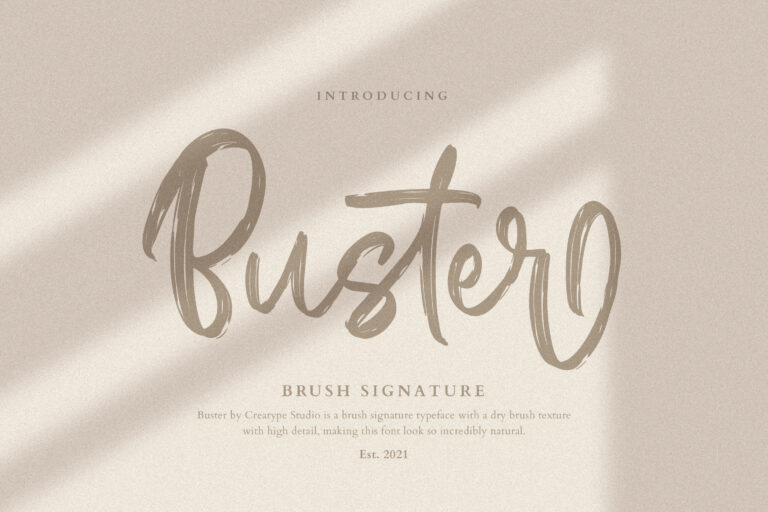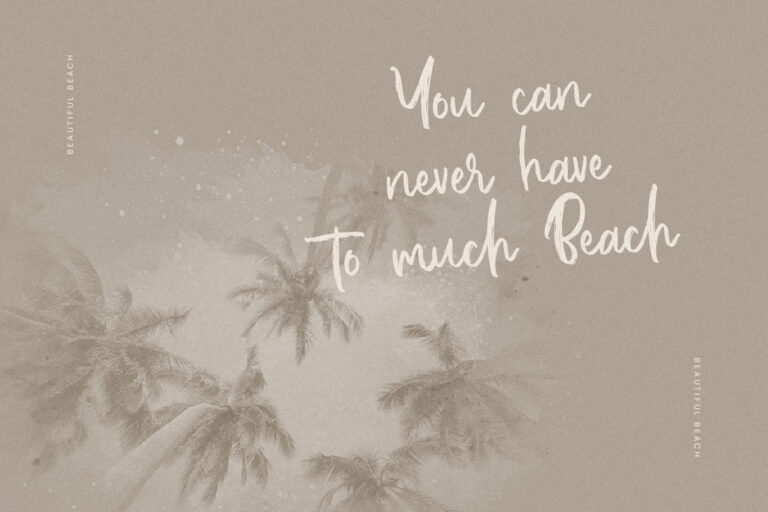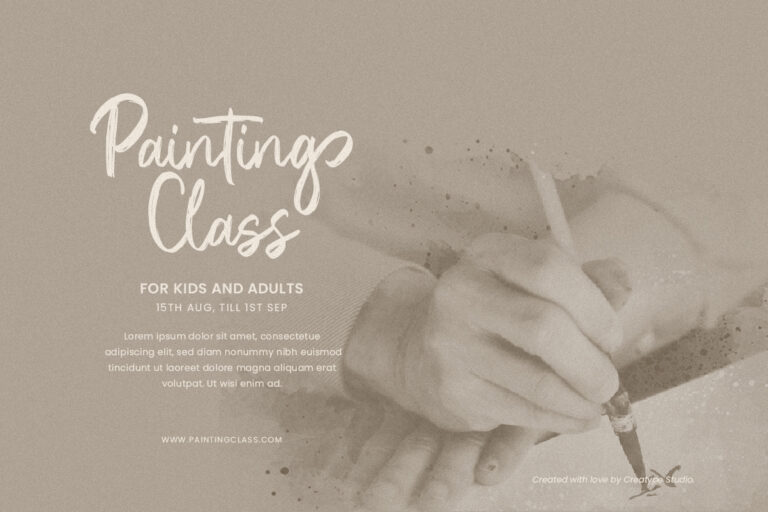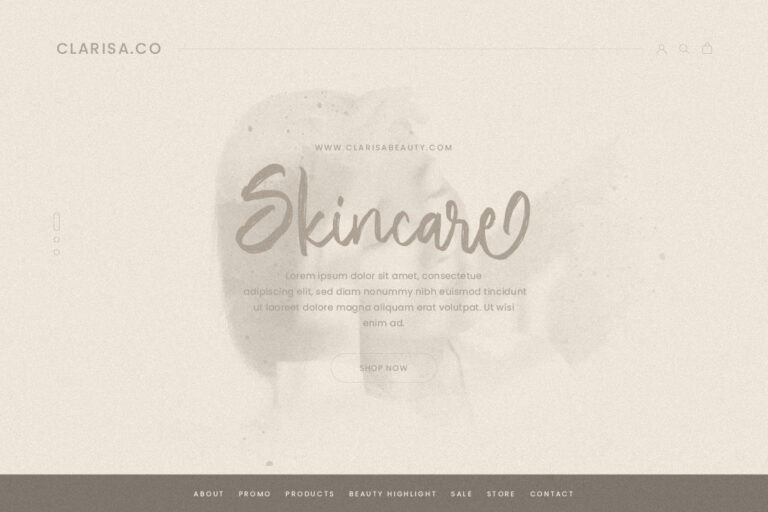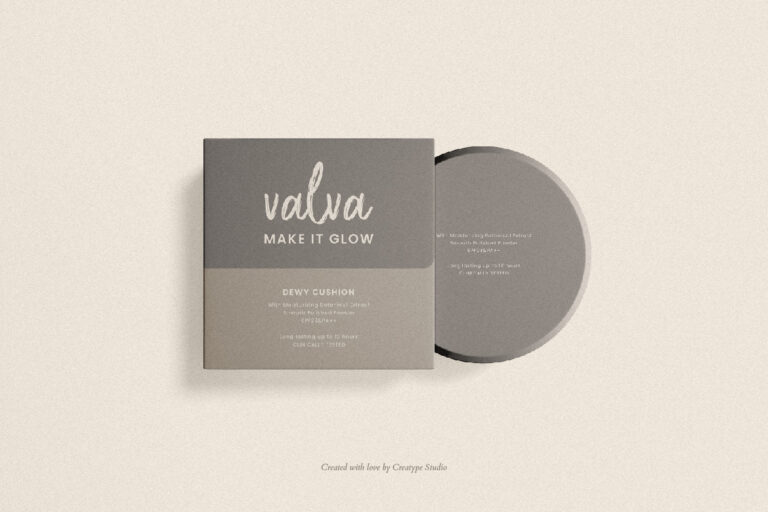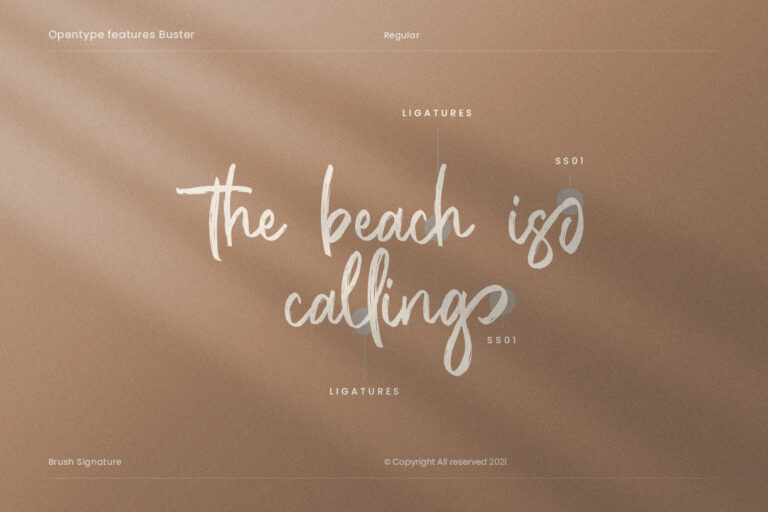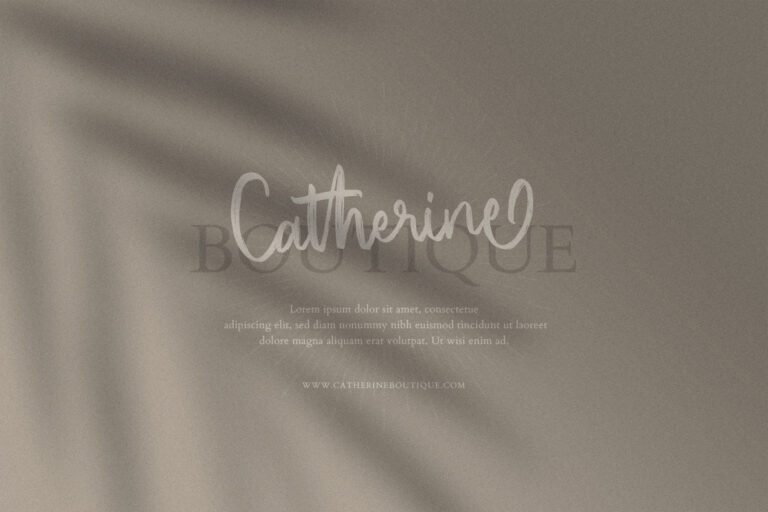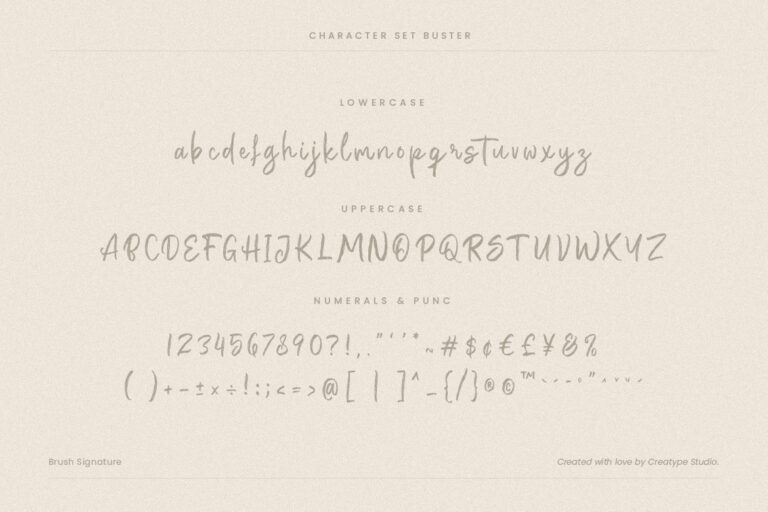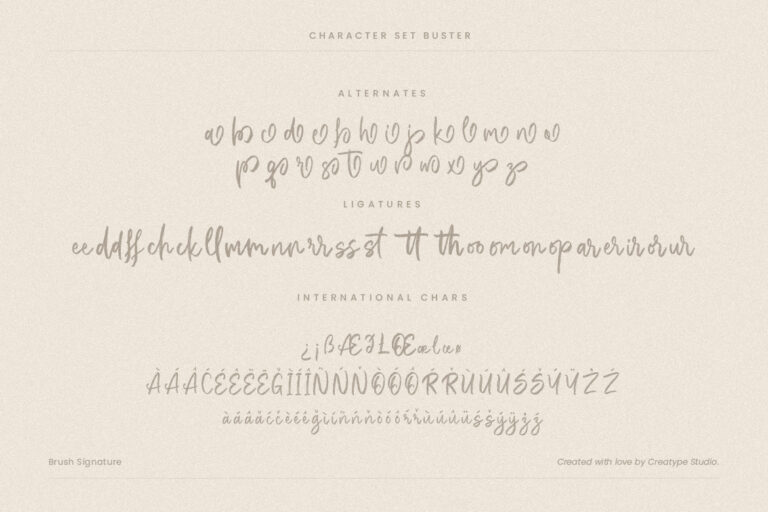
Buster Brush Signature
Buster is a brush signature typeface with a dry brush texture with high detail, making this font look so incredibly natural. This font is perfect when paired with a serif or sans serif font.
Buster is perfect for branding projects, logo, wedding designs, social media posts, advertisements, product packaging, product designs, label, photography, watermark, invitation, stationery and any projects that need handwriting taste.